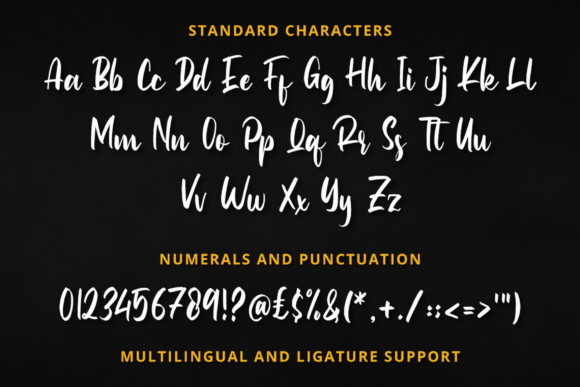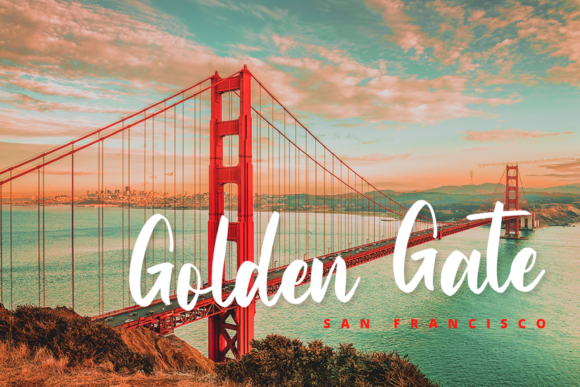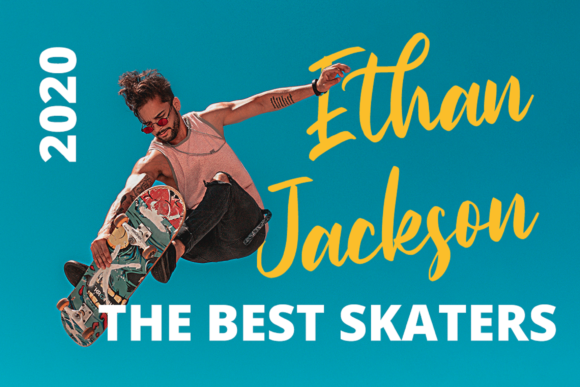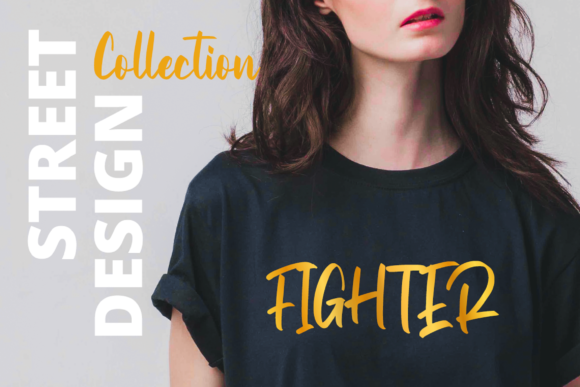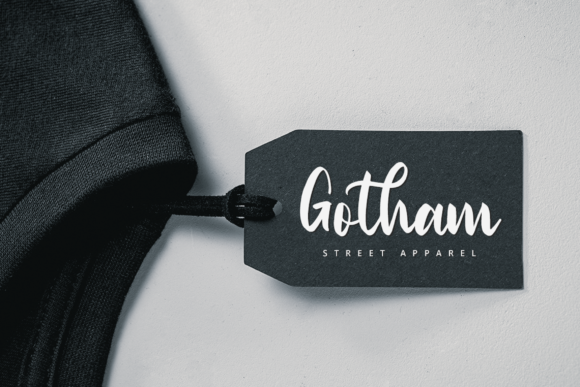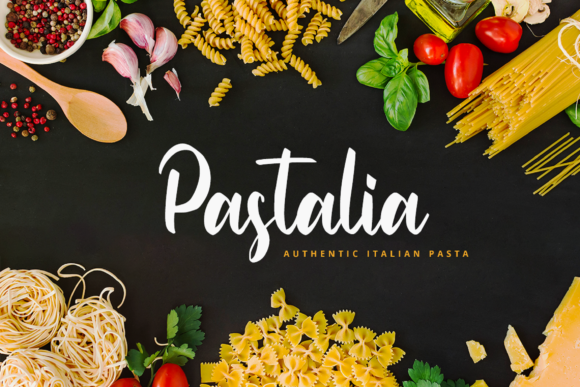
Authentica Font: A Spectacular Handwritten Font for Your Creative Projects
Are you a designer or crafter looking for a unique and eye-catching font to elevate your creative projects? Look no further than Authentica, a spectacular handwritten font that is sure to make your designs stand out. In this article, we’ll take a closer look at Authentica and explore its features, benefits, and uses.
What is Authentica Font?
Authentica is a beautifully crafted handwritten font that is perfect for adding a personal touch to your designs. With its unique and elegant letterforms, Authentica is sure to capture the attention of your audience and leave a lasting impression. Whether you’re designing a logo, brochure, or social media graphic, Authentica is a versatile font that can be used in a variety of contexts.
Key Features of Authentica Font
So, what makes Authentica font so special? Here are some of its key features:
- Handwritten style: Authentica has a beautiful, handwritten style that gives it a personal and unique feel.
- Unique letterforms: Each letterform in Authentica is carefully crafted to be distinctive and elegant.
- Highly legible: Despite its artistic style, Authentica is highly legible, making it perfect for use in a variety of contexts.
- Versatile: Authentica can be used in a range of design projects, from logos and brochures to social media graphics and more.
Benefits of Using Authentica Font
So, why should you choose Authentica font for your design projects? Here are some of the benefits of using Authentica:
- Adds a personal touch: Authentica’s handwritten style adds a personal touch to your designs, making them more relatable and engaging.
- Standout designs: With its unique letterforms and elegant style, Authentica is sure to make your designs stand out from the crowd.
- Easy to read: Despite its artistic style, Authentica is highly legible, making it easy for your audience to read and understand your message.
- Time-saving: With Authentica, you can create professional-looking designs in no time, saving you time and effort.
Using Authentica Font in Your Designs
So, how can you use Authentica font in your designs? Here are some ideas to get you started:
- Logos: Use Authentica to create a unique and memorable logo for your brand.
- Brochures: Add a personal touch to your brochures with Authentica’s elegant handwritten style.
- Social media graphics: Use Authentica to create eye-catching social media graphics that will help your brand stand out.
- Headlines: Use Authentica as a standalone headline to add emphasis and create a lasting impression.
Tips for Getting the Most Out of Authentica Font
Here are some tips for getting the most out of Authentica font:
- Experiment with colors: Try out different colors and combinations to find the one that works best for your design.
- Play with textures: Add texture to your design by combining Authentica with different backgrounds and textures.
- Mix and match: Combine Authentica with other fonts and styles to create a unique and interesting design.
In conclusion, Authentica font is a spectacular handwritten font that is perfect for designers and crafters looking to add a personal touch to their creative projects. With its unique letterforms, elegant style, and high legibility, Authentica is sure to make your designs stand out. Whether you’re designing a logo, brochure, or social media graphic, Authentica is a versatile font that can be used in a variety of contexts. So why not give Authentica a try and see the difference it can make in your designs?